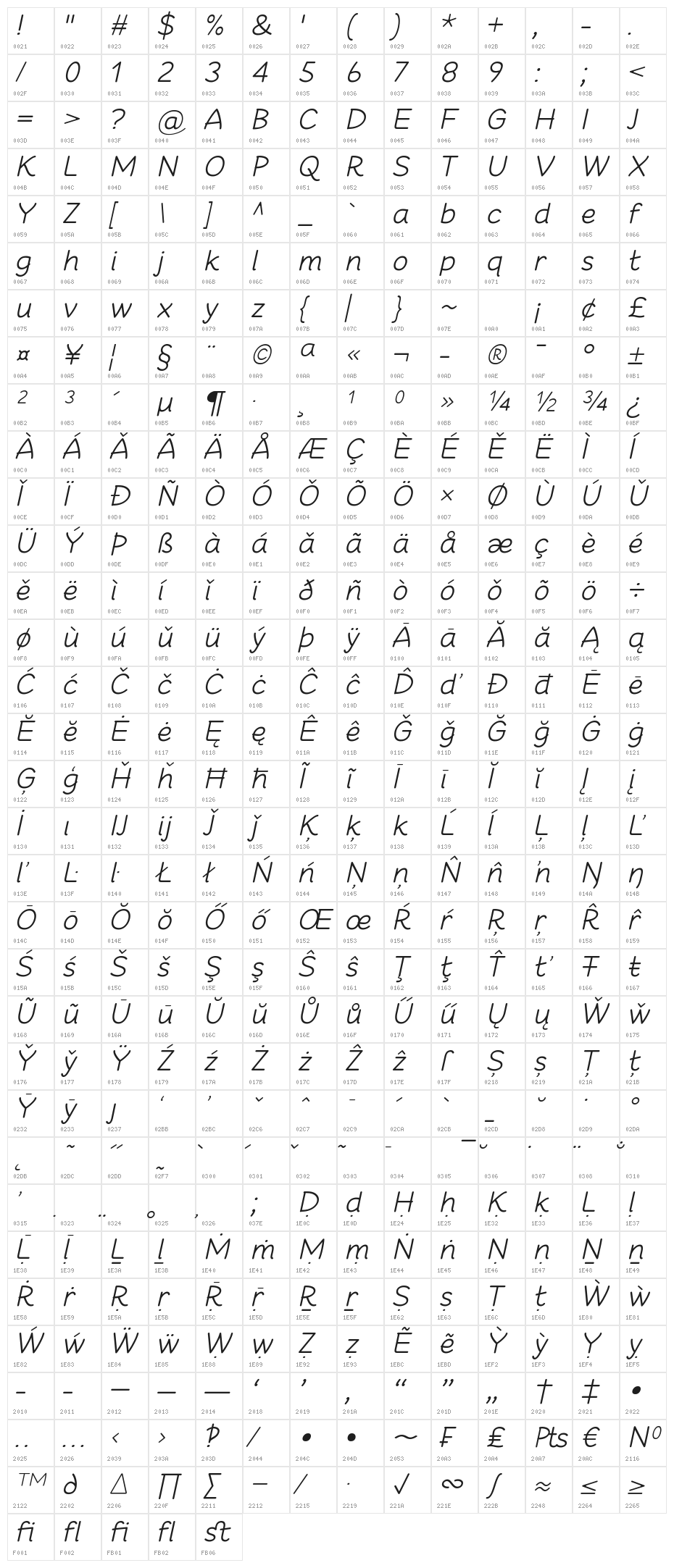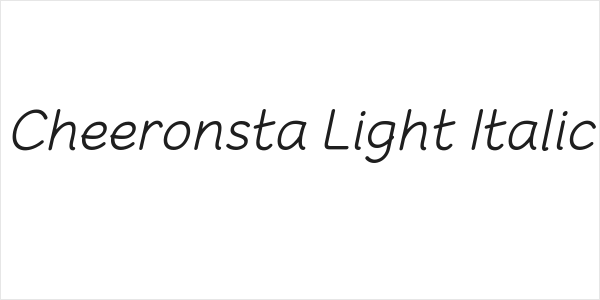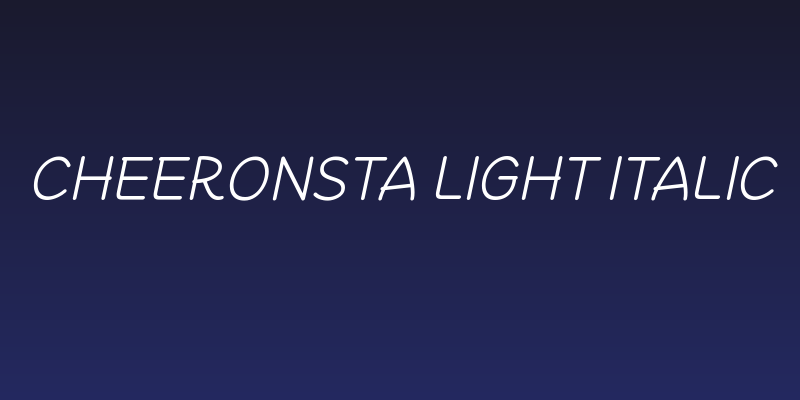
Cheeronsta Light Italic Font
Cheeronsta Light Italic Description
This font features a light and elegant design with a subtle italic slant, giving it a graceful and fluid appearance. The characters are crafted with a modern sensibility, showcasing clean lines and a smooth flow. The uppercase letters are slightly taller than the lowercase, maintaining a consistent and harmonious look. The numerals are well-proportioned, aligning seamlessly with the alphabetic characters. Special characters are included, offering versatility in various design contexts. The overall aesthetic is refined and contemporary, making it suitable for a range of creative applications.